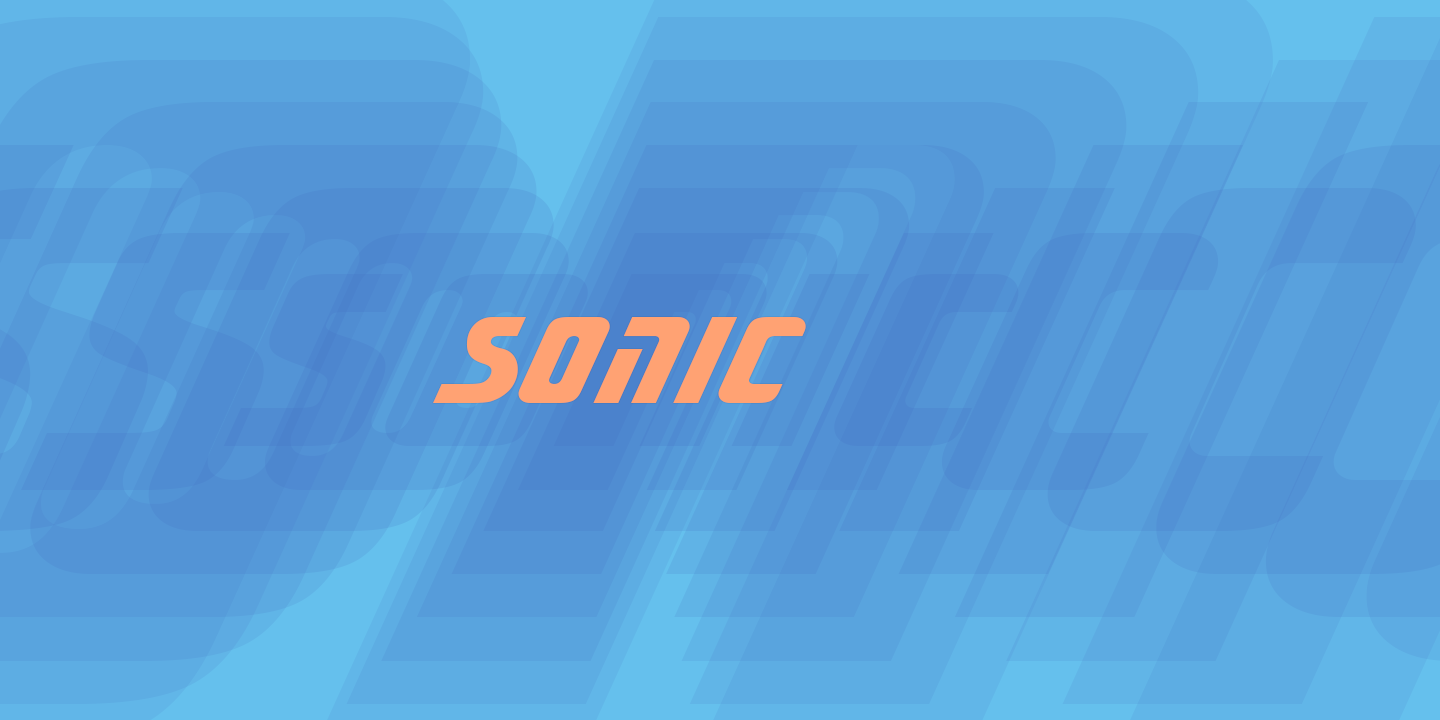
The Sonic Font (referring to fonts inspired by the iconic Sonic the Hedgehog franchise, such as those used in the games or movies, or display fonts named "Sonic" by various foundries) is an outstanding choice for projects that demand a dynamic, energetic, and playful aesthetic with a sense of speed and adventure. It's perfectly suited for gaming-related content, children's entertainment branding, action-packed posters, merchandise design, comic book titles, and any design that requires a vibrant, fast-paced, and highly engaging typeface. Its distinctive character makes it ideal for conveying a sense of excitement, youthfulness, and unstoppable momentum.
What makes Sonic Font so exciting is its ability to immediately evoke a sense of speed and high-octane fun. Whether it's the bold, sometimes italicized letters with a sense of forward motion, or the more abstract, geometric sans-serifs that amplify messages, this font captures the essence of its namesake. It’s a typeface that literally seems to be in motion, grabbing attention with its energetic stance and often stylized letterforms. This font isn't just about reading words; it's about feeling the thrill of a high-speed chase or the excitement of a new adventure. It excels at delivering maximum visual impact, ensuring your headlines and key messages pop with an undeniable sense of vitality and action.
The Sonic Font family can vary widely depending on the specific inspiration. If it's directly referencing the Sonic the Hedgehog logo, it often involves a combination of different sans-serif weights and stylized characters (like the distinctive 'O' or 'C'). For more general "Sonic" branded fonts, you might find families like Mix Sonic Font which includes Mix Sonic Moon (a rounded, bouncy sans serif) and Mix Sonic Star (an all-uppercase dingbat hybrid). Other variations might include bold, condensed, or even distorted styles to convey speed and impact. The underlying theme is always dynamic and visually assertive.
Whether you're creating fan art, designing a birthday party invitation, developing an engaging app for kids, or crafting compelling marketing materials for an energetic brand, the Sonic Font Free Download offers an indispensable tool. Its imaginative appeal and undeniable charm make it a standout choice for any project that aims to be fast, fun, and visually irresistible.